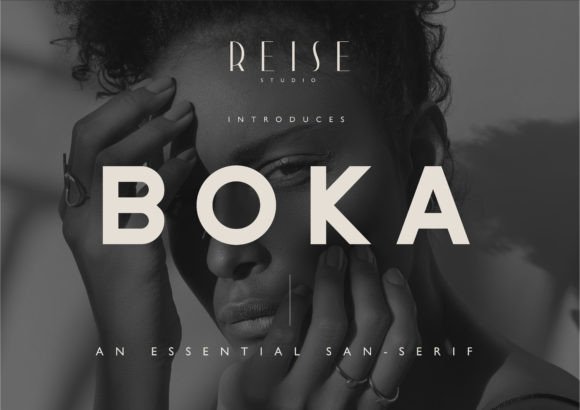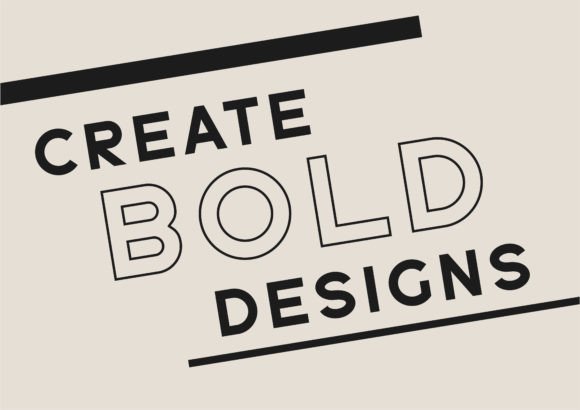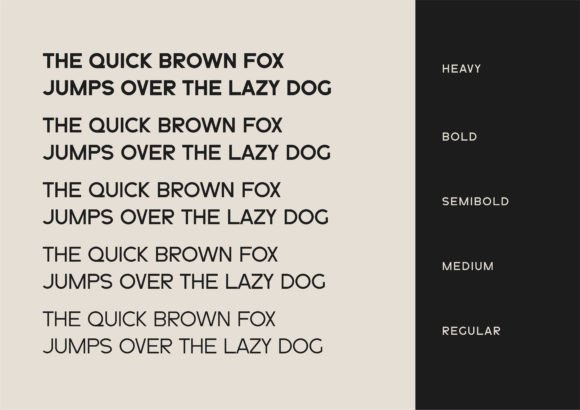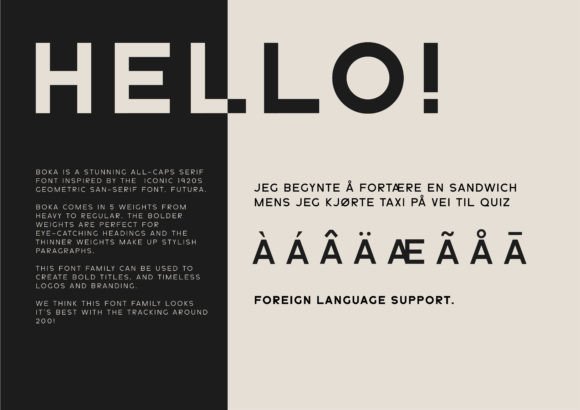
Boka Font: Bold Sans Serif for Modern Logo Design & Branding Kits
About the Boka Font
Step up your design game with Boka Font, a font that exudes confidence and style. This elegant and bold sans-serif font is perfect for creating striking, modern designs. Its sleek lines and angles balance the strength of a bold font with the sophistication of a delicate one.
Boka excels in headline applications, short-form text on branding materials, and striking visual elements within posters or packaging design. Its strong yet refined presence commands attention without overwhelming the viewer. Avoid using Boka for body text or lengthy paragraphs; its bold weight can strain readability in extended use.
For optimal pairing, consider a clean, neutral sans-serif like Lato or Open Sans for body copy, complementing Boka’s boldness with a sense of calm. Alternatively, a delicate serif such as Merriweather can add a touch of classic elegance, creating a sophisticated contrast.
Boka projects a confident, modern, and slightly luxurious personality. It suits brands seeking to convey strength, sophistication, and a touch of understated boldness. Think high-end fashion, premium products, or cutting-edge technology.
Boka Font Usage Examples
Boka Font Example